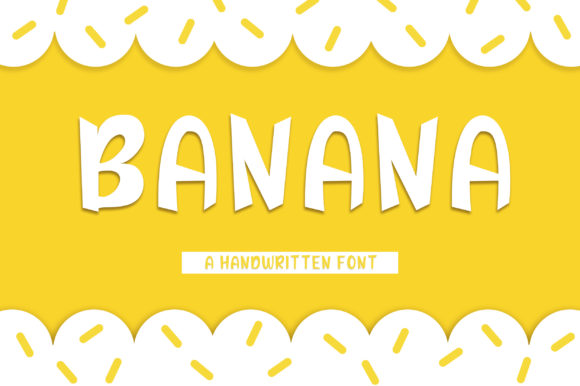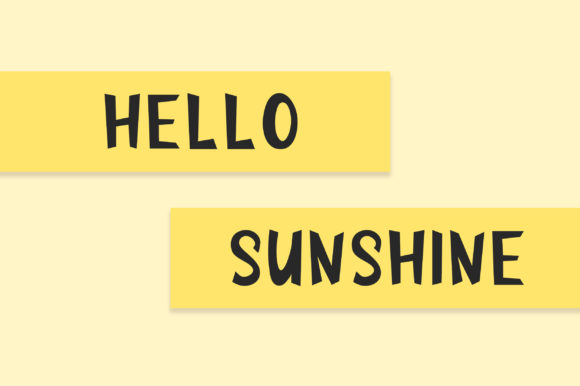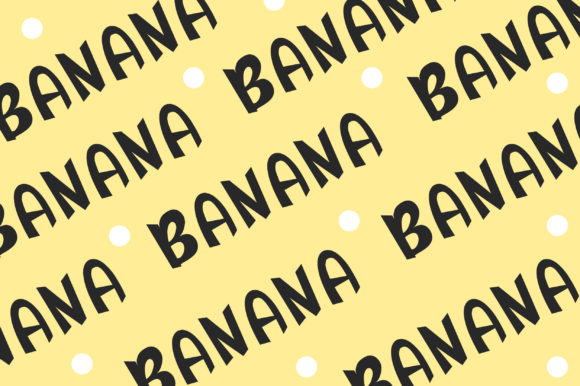
About Banana Font
“Banana” is introduced as a fun and friendly handwritten font designed to bring a sense of charm to various design projects. The font is recommended for turning any design idea into a standout, emphasizing its ability to add a unique and delightful touch to creative endeavors.
The description of “Banana” as fun and friendly suggests a font that carries a lighthearted and approachable vibe. This positioning makes it suitable for projects where a playful and charming appearance is desired, providing a unique charm to the overall design.
The font is presented as an inspiration for creating lovely designs, indicating its potential to add a distinctive and appealing element to various creative projects.
In summary, “Banana” is described as a fun and friendly handwritten font, offering a unique charm that can make any design stand out. Whether used for branding, marketing materials, or other creative applications, the font is positioned as a tool to infuse a sense of playfulness and warmth into the designs.